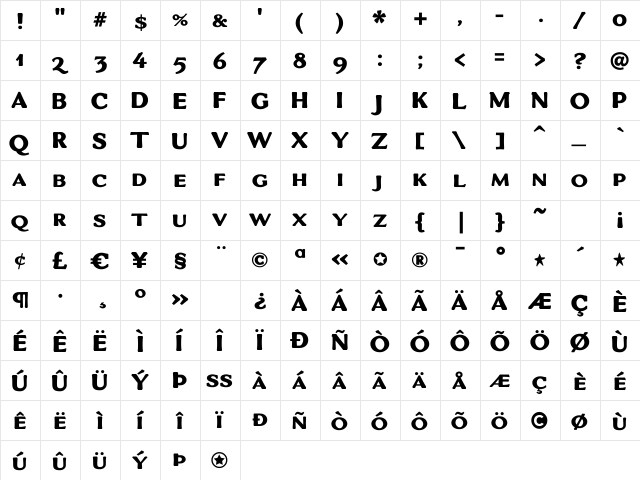
VenisSmall Caps ExtraBold Regular
Design Context for VenisSmall Caps ExtraBold Typeface
VenisSmall Caps ExtraBold takes a measured approach to typography — its balanced proportions and neutral character make it a reliable workhorse for both digital and print work. The heavy weight commands attention and anchors typographic hierarchies.